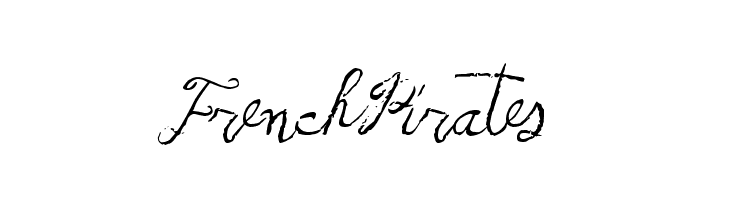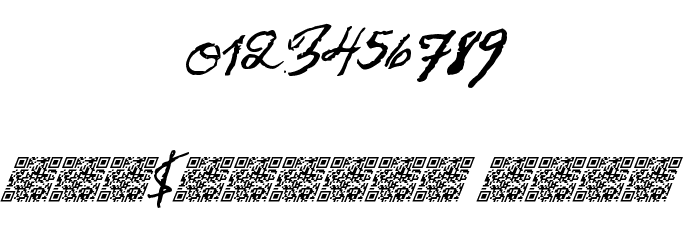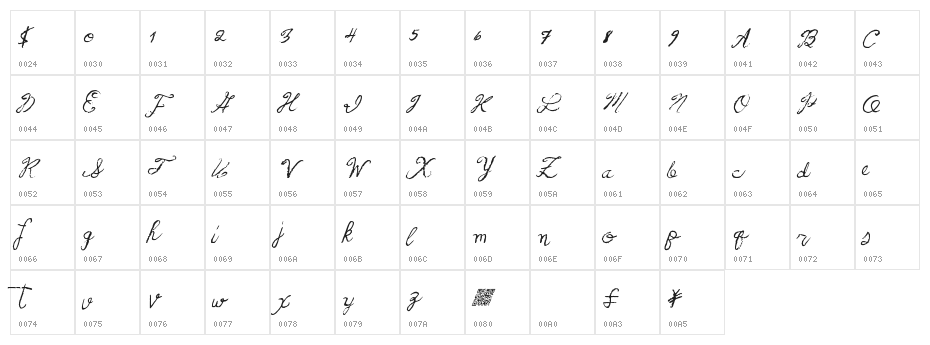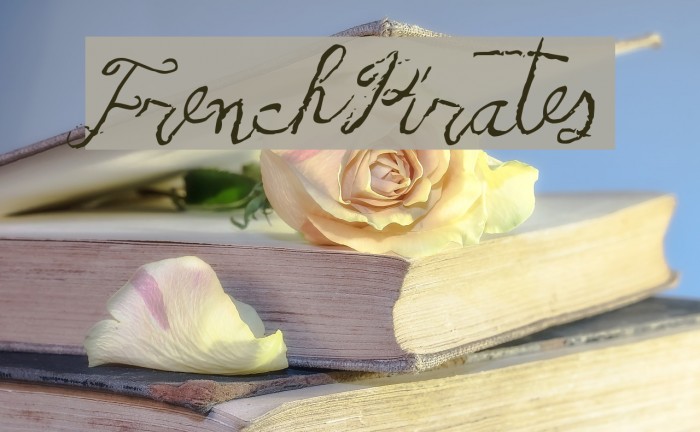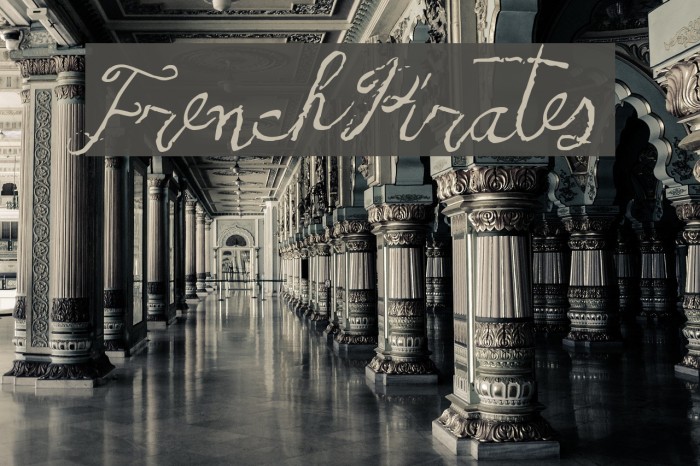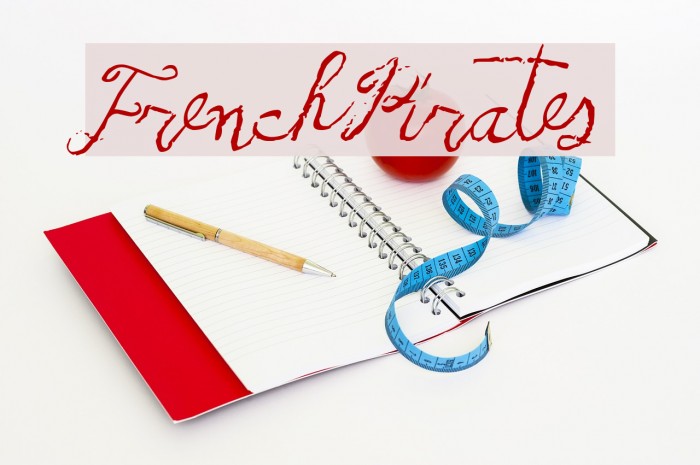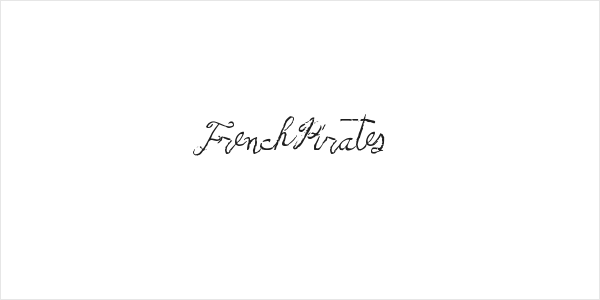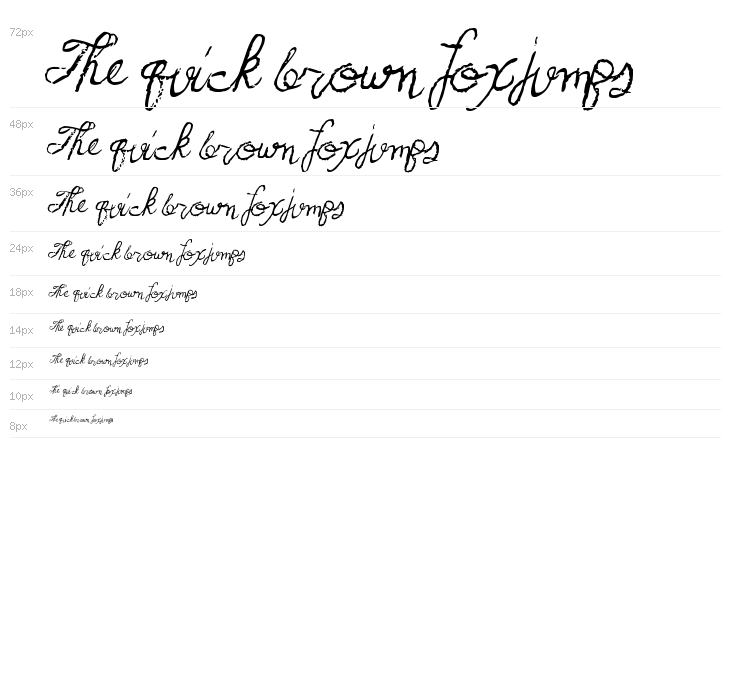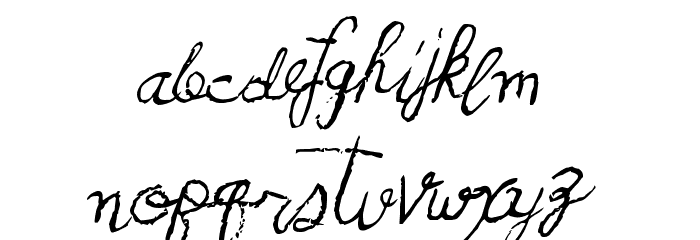
FrenchPirates Font
FrenchPirates Description
This font exudes a sense of historical elegance and mystery, reminiscent of old pirate maps and handwritten letters from the past. The characters are crafted with a calligraphic flair, featuring swirling lines and ornate details that give it a distinctively vintage and adventurous feel. The uppercase letters are bold and dramatic, while the lowercase letters maintain a fluid and graceful appearance. Numbers and special characters are designed with the same intricate style, ensuring a cohesive look across all text. The overall texture is slightly rough, adding to its aged and authentic appearance.
| Use Case | Logos, Invitations, Themed Events |
| Proposed Projects | Ideal for projects that require a touch of historical elegance, such as pirate-themed events, vintage posters, or historical fiction book covers. |